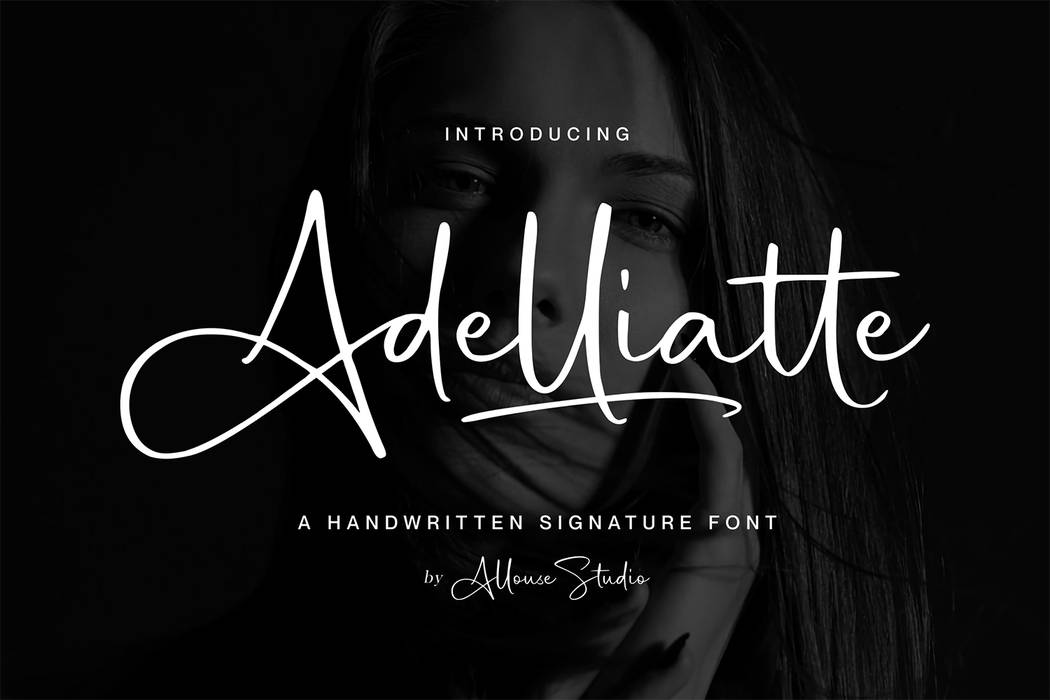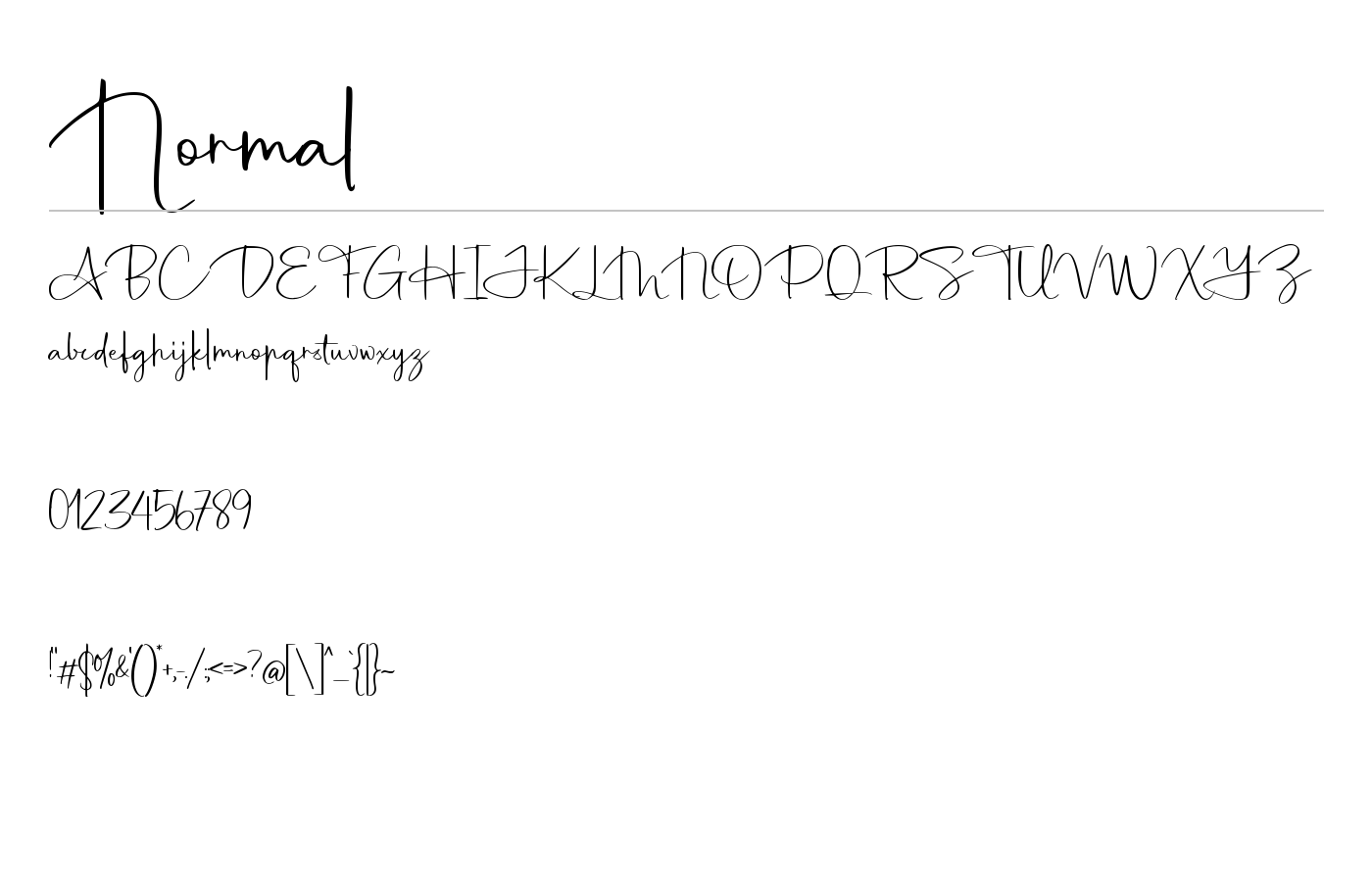
Adelliatte is a delicate, handwritten script font characterized by its slender strokes and graceful, flowing letterforms. Its tall, airy structure with varied line thickness gives it an elegant yet modern feel, making it perfect for personal branding, invitations, and expressive design projects where a refined, artistic touch is desired. This font suits creative uses that benefit from a soft, intimate style with a hint of sophistication.
Adelliatte Font
About Adelliatte Font